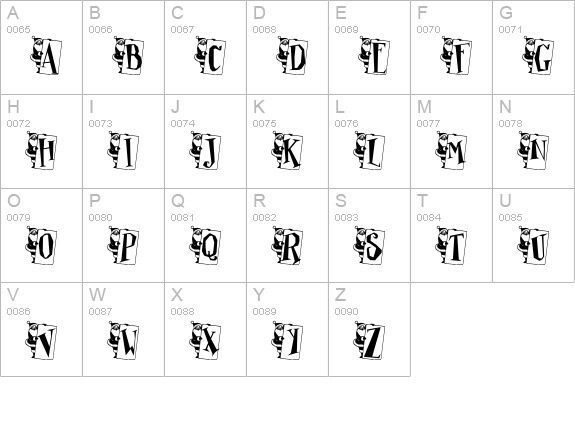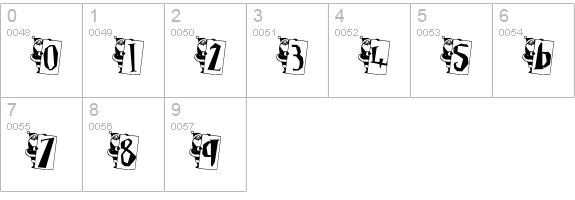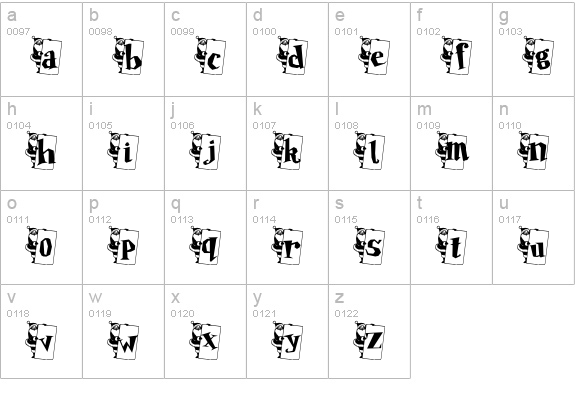
Papa Noel Font Details
Introducing Papa Noel, a whimsical and joyful font that will add a touch of festive magic to your designs. With its playful and rounded letterforms, Papa Noel captures the essence of the holiday season, evoking childhood memories of eagerly awaiting the arrival of Santa Claus. This delightful font is perfect for a wide range of projects, from greeting cards and invitations to posters and social media graphics. Its versatility ensures that it can be used for both personal and commercial purposes, making it a must-have in any designer's toolkit. But what makes Papa Noel truly special is that it is completely free! Yes, you heard that right. This enchanting font is freely available to download at FontsMarket.com, a trusted source for high-quality fonts. So you can bring the magic of Papa Noel into your projects without spending a dime. Whether you're creating a holiday-themed design or simply want to add a touch of whimsy to your work, Papa Noel is the perfect choice. Its cheerful and charming characters will instantly bring a smile to your face and capture the spirit of the season. So go ahead and download Papa Noel today, and let your creativity shine with this delightful font!